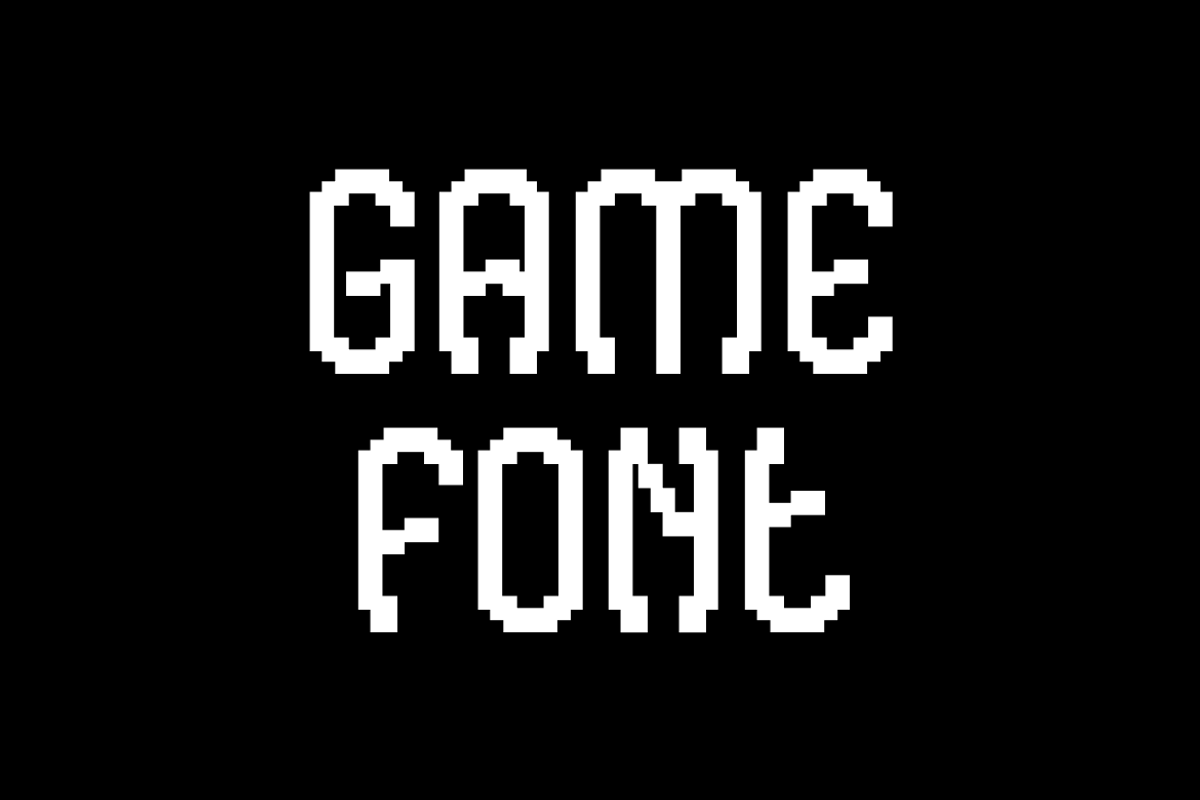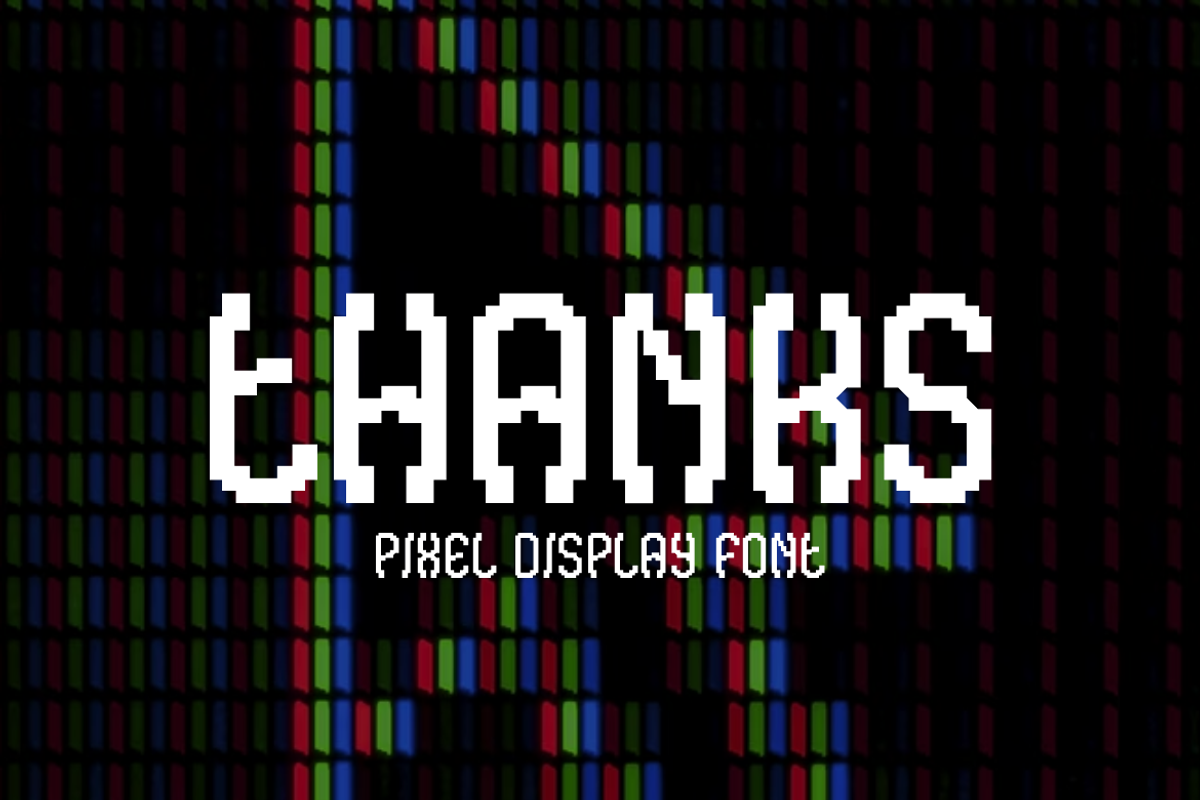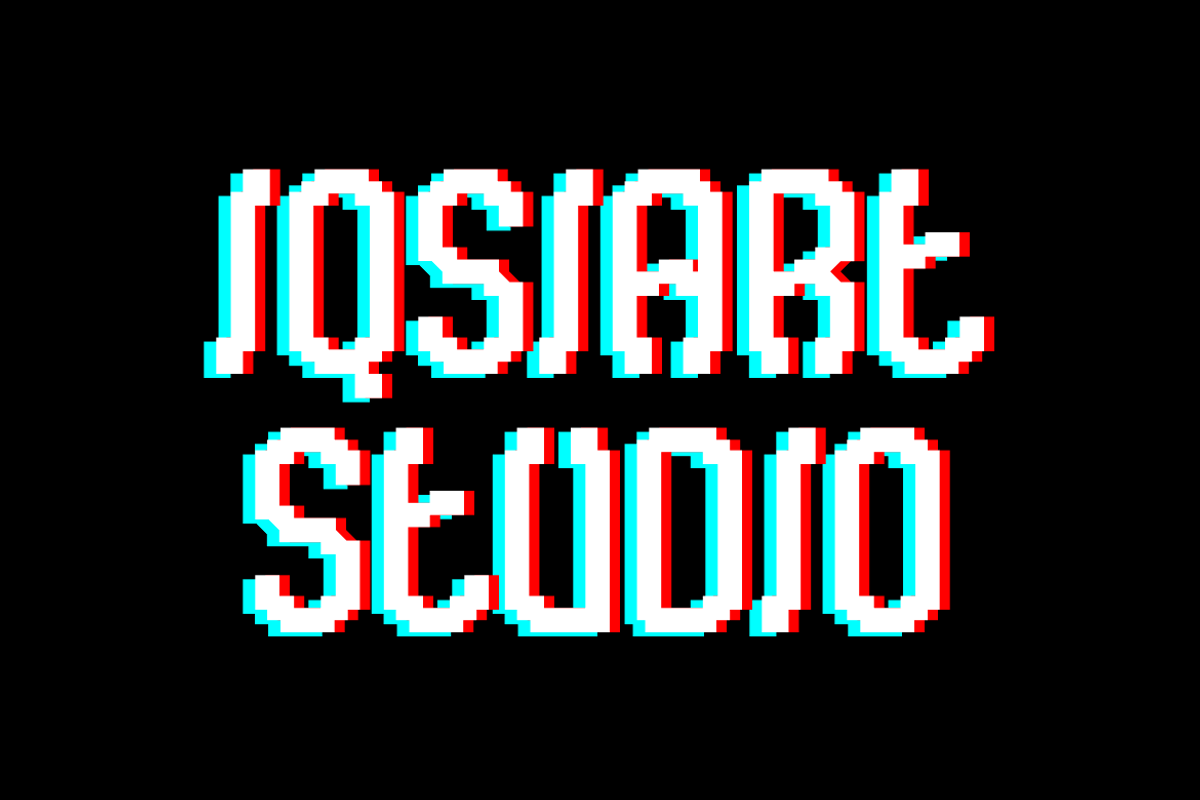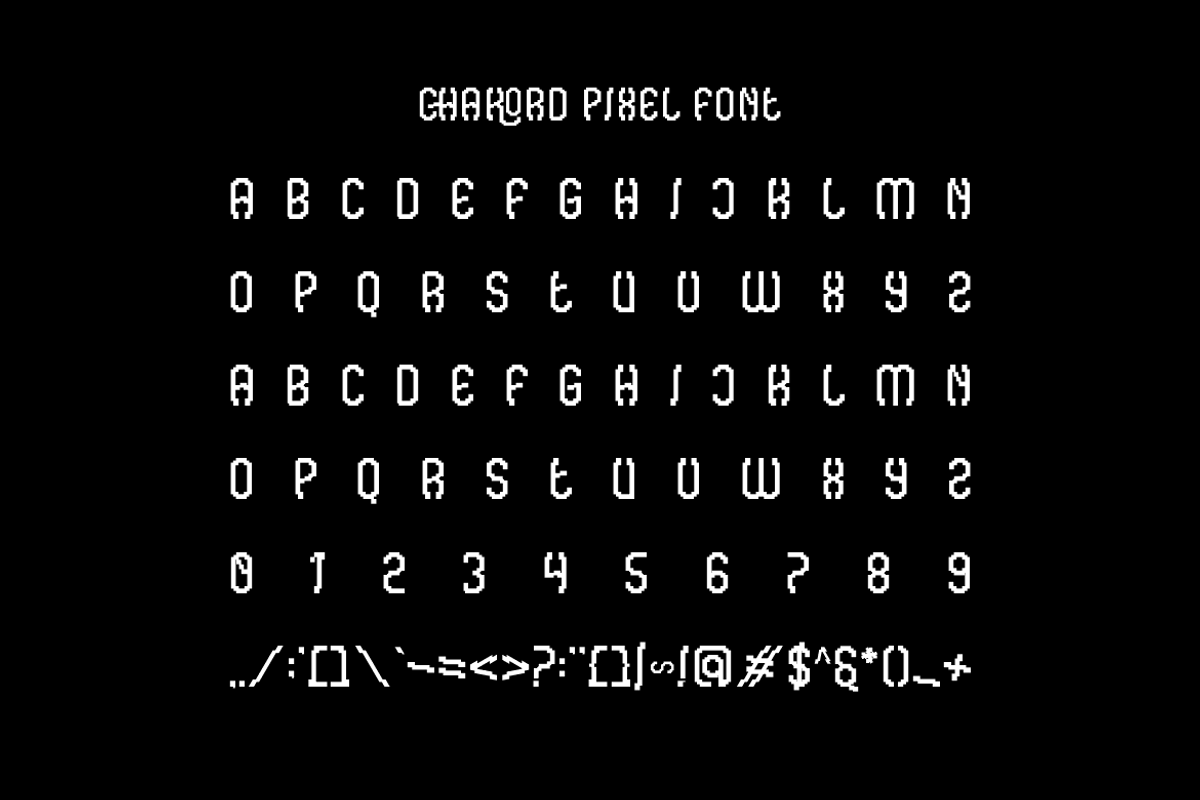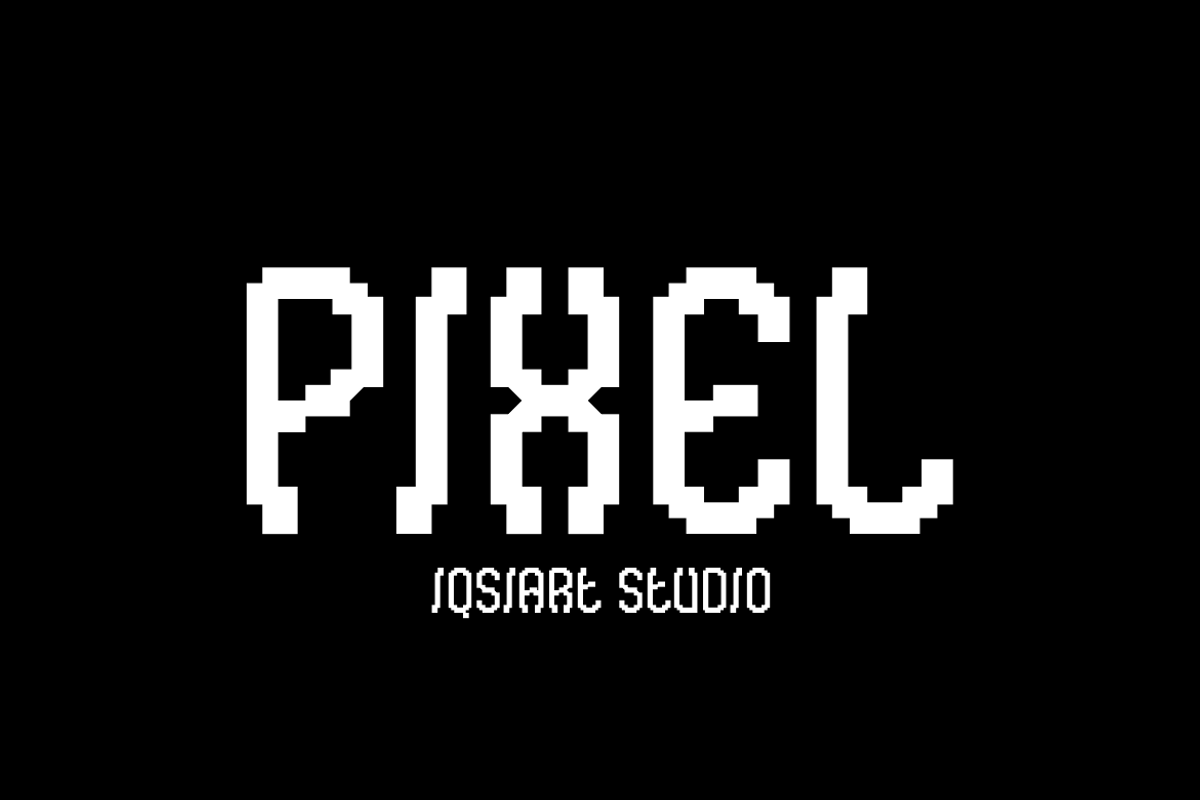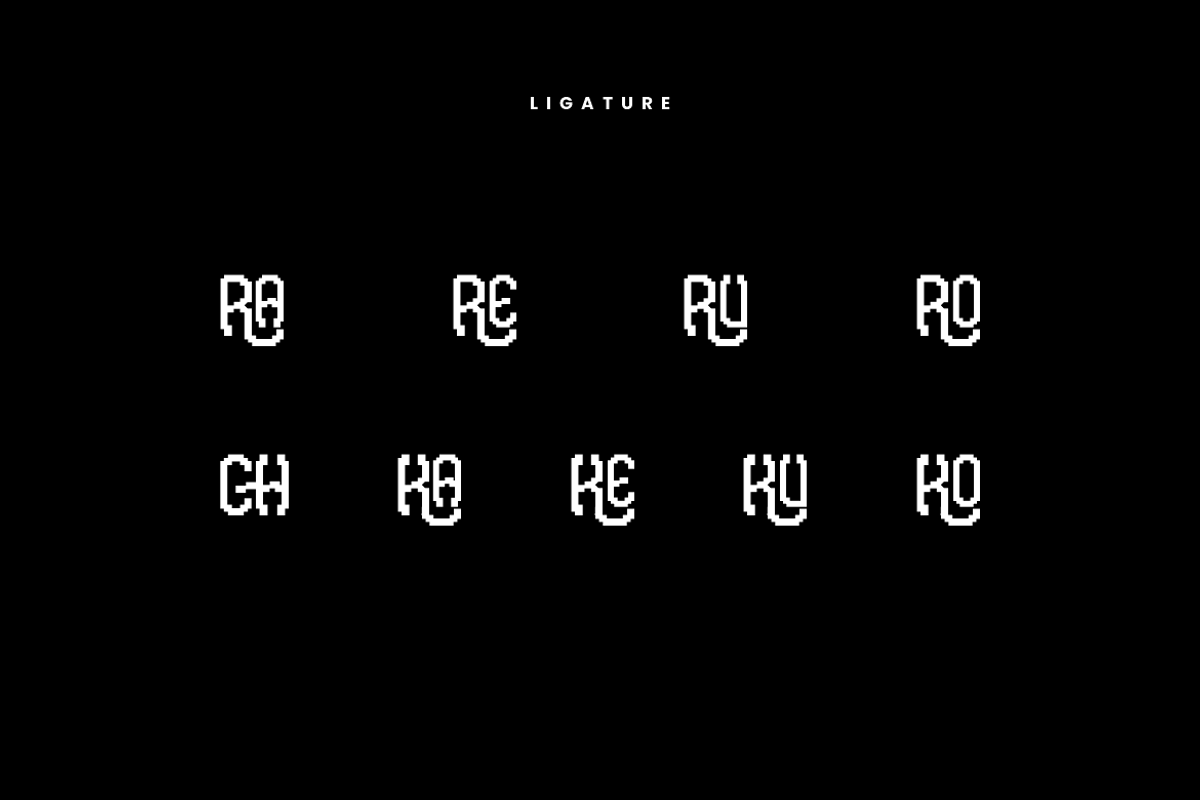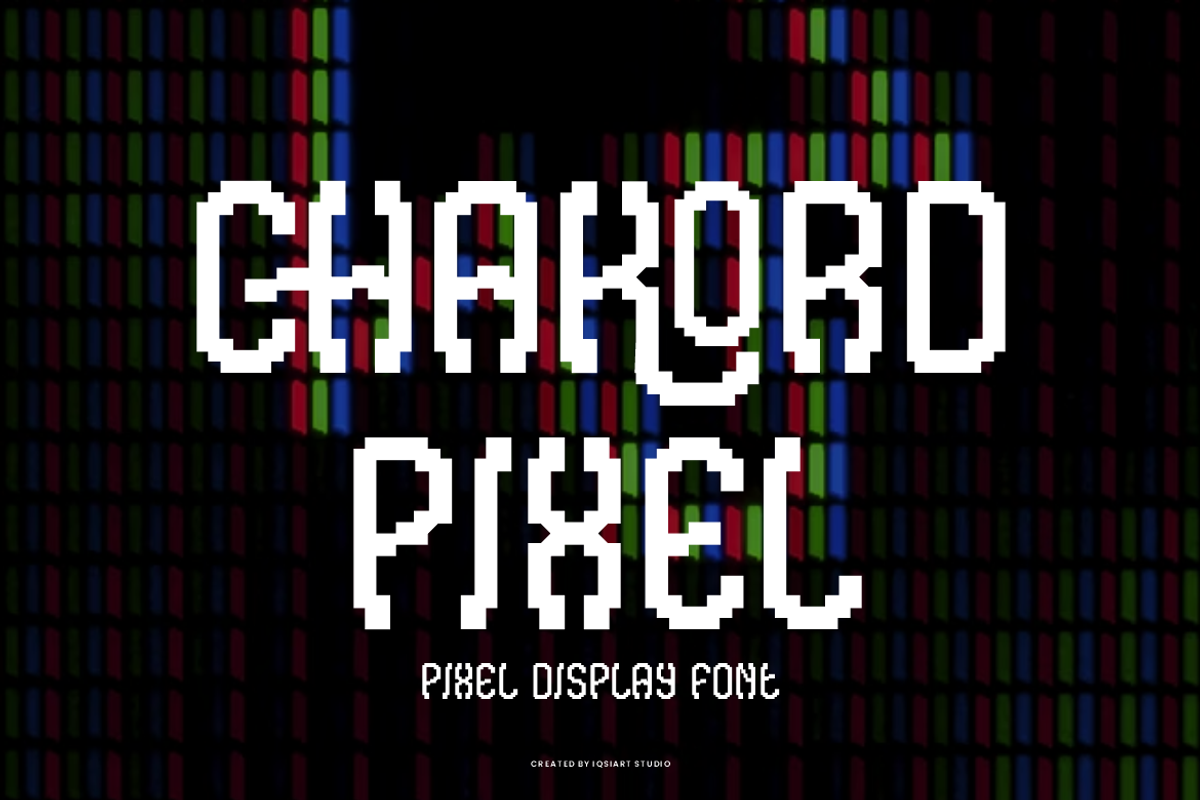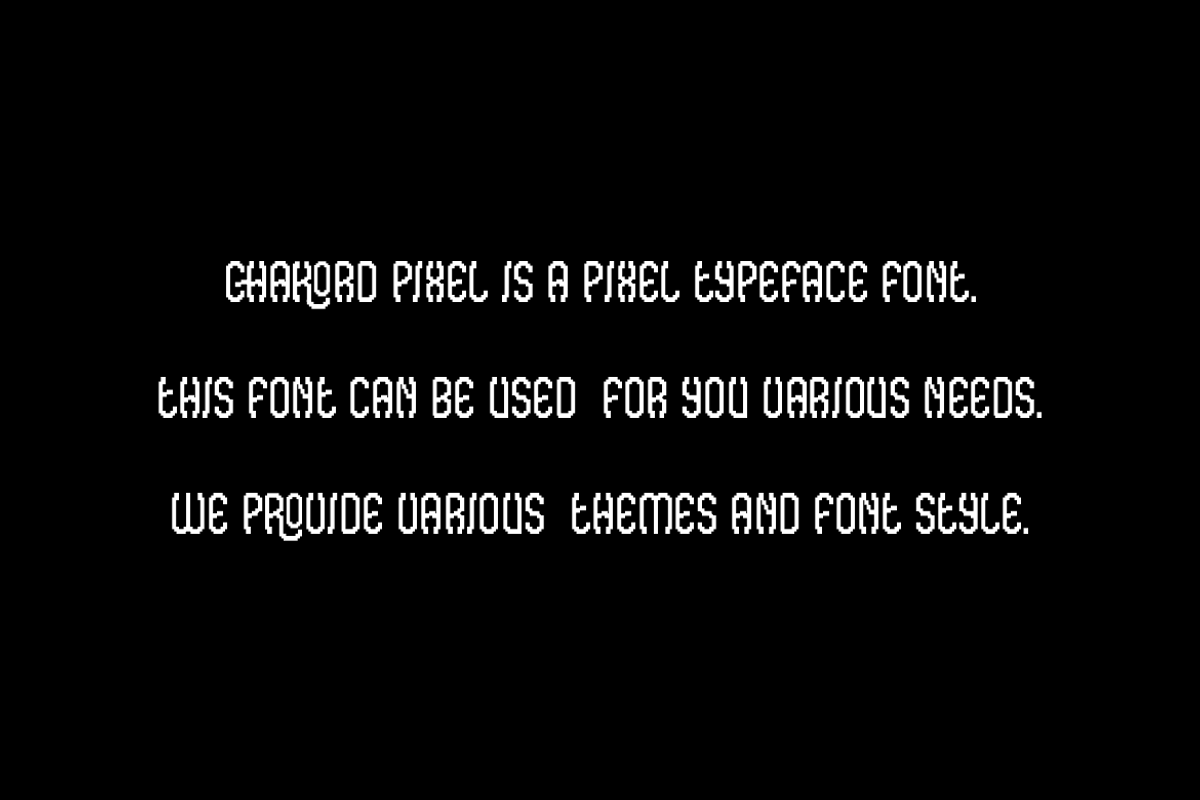
Chakord Pixel Font
Chakord Pixel Font is a best and authentic display font. This font can be used for your various needs. We provide various themes and font styles. visit our profile to get a wide variety of themes and different font styles you need.